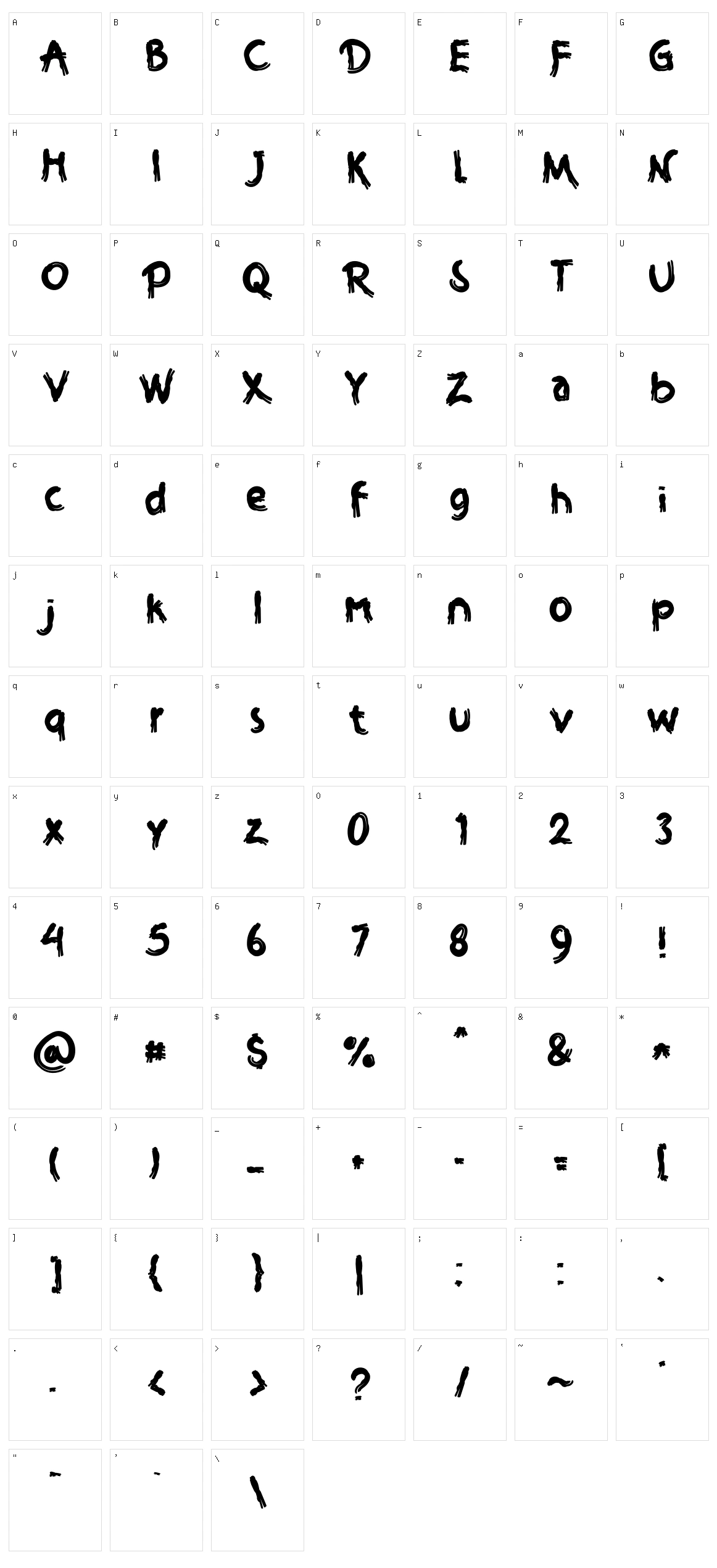
The free font Ghost Death is carefully designed by Eddy Goodboy, showcasing a thoughtful balance of creativity and usability and falls under the Halloween font style. When you download the ZIP file, it contains only 126.51 KB of font files, making it lightweight and quick to download. Please review the license details below to understand permitted usage and distribution rights. If license information is not available, we recommend using this font for personal projects only or contacting the author directly for commercial usage permissions.